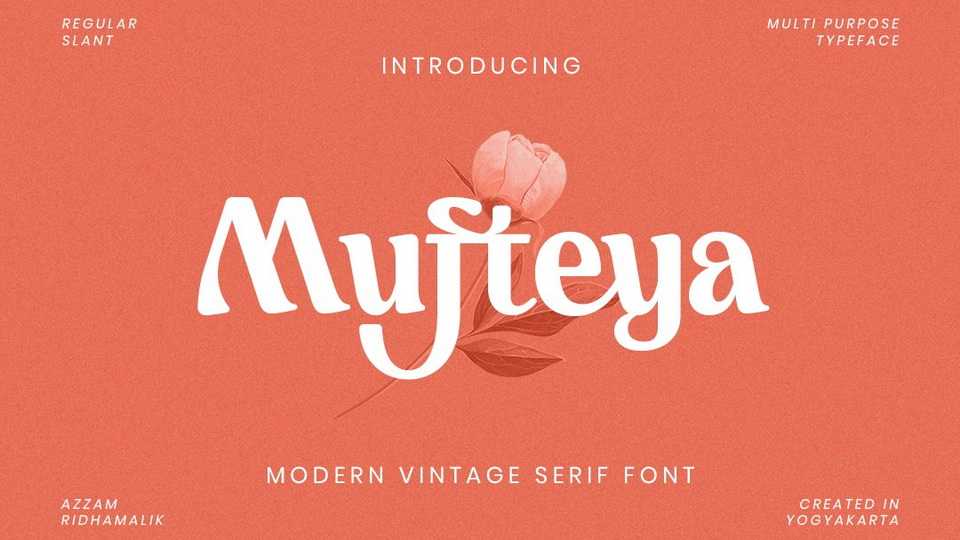
Download Mufteya is a modern serif with some retro touch and a warm feel. Mufteya is a perfect solution for your next vintage logo, layout design, vintage poster, magazine headers, or simply as a stylish text overlay to any background image.
Designer: Zarma Type Foundry